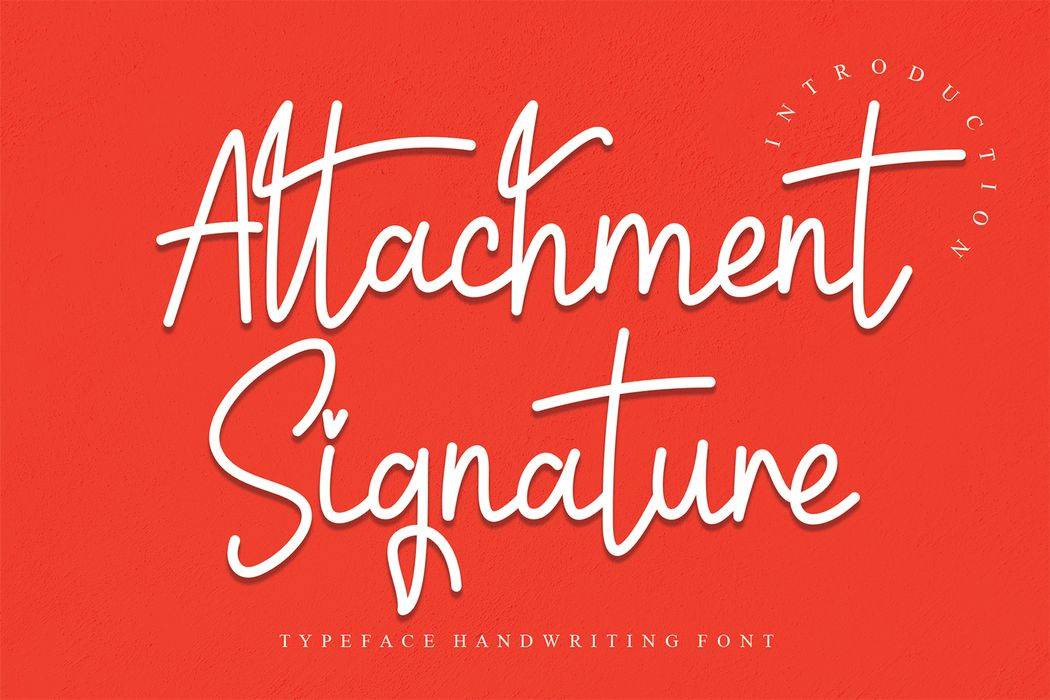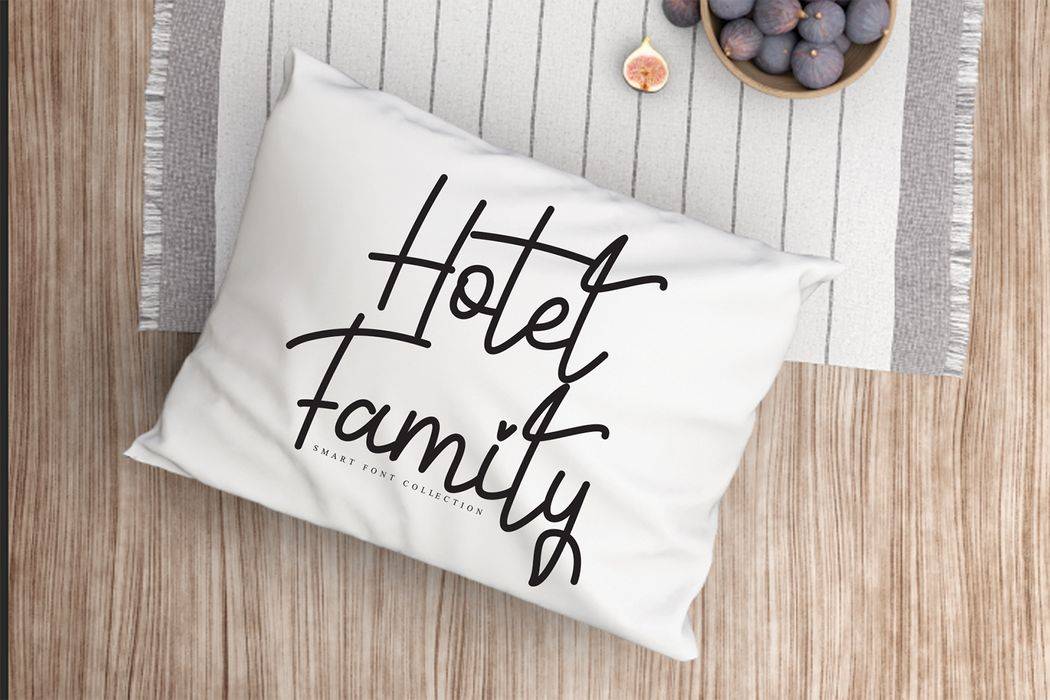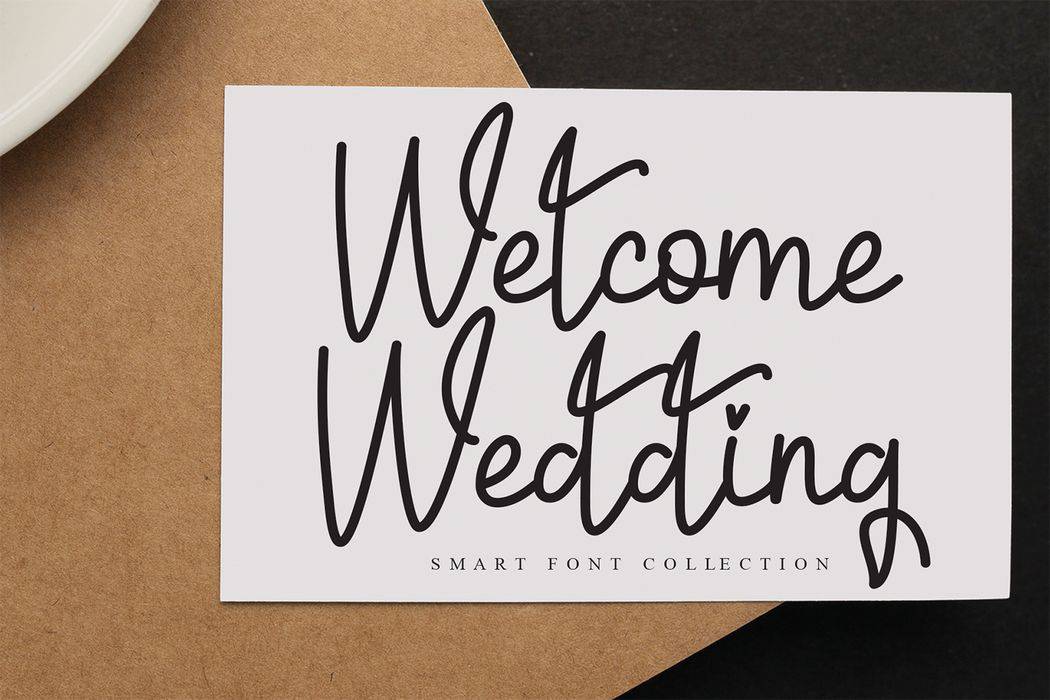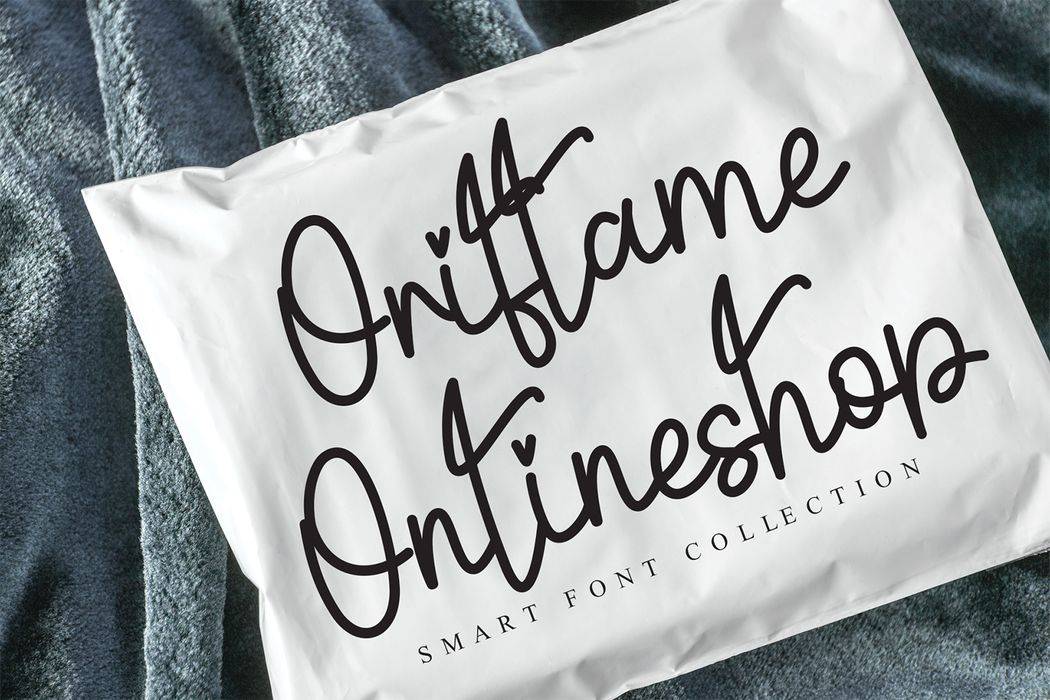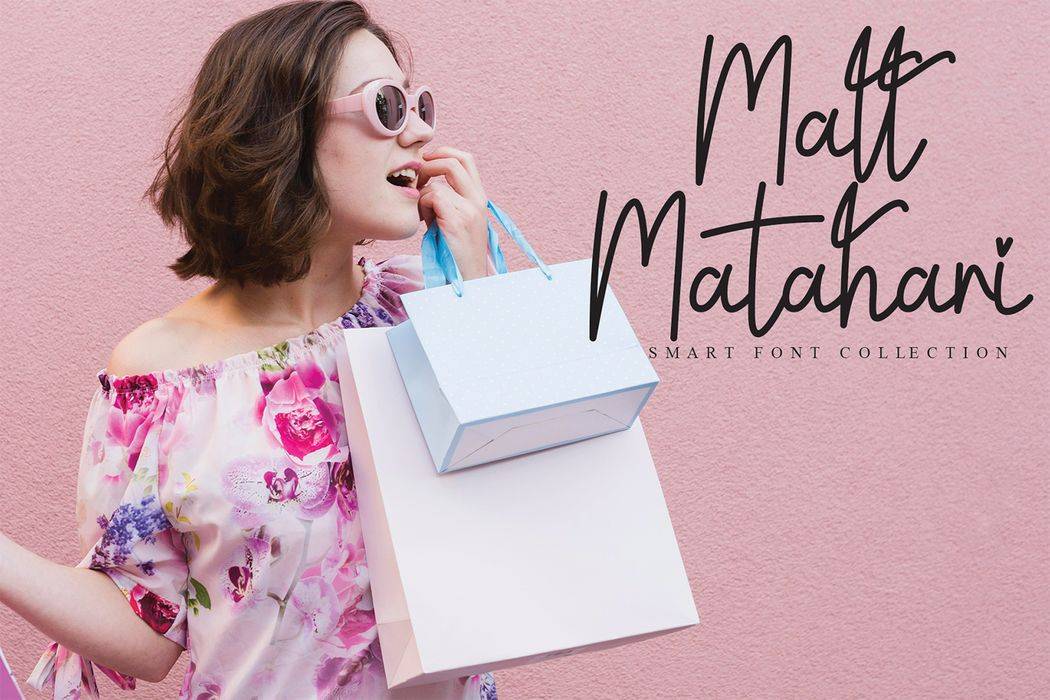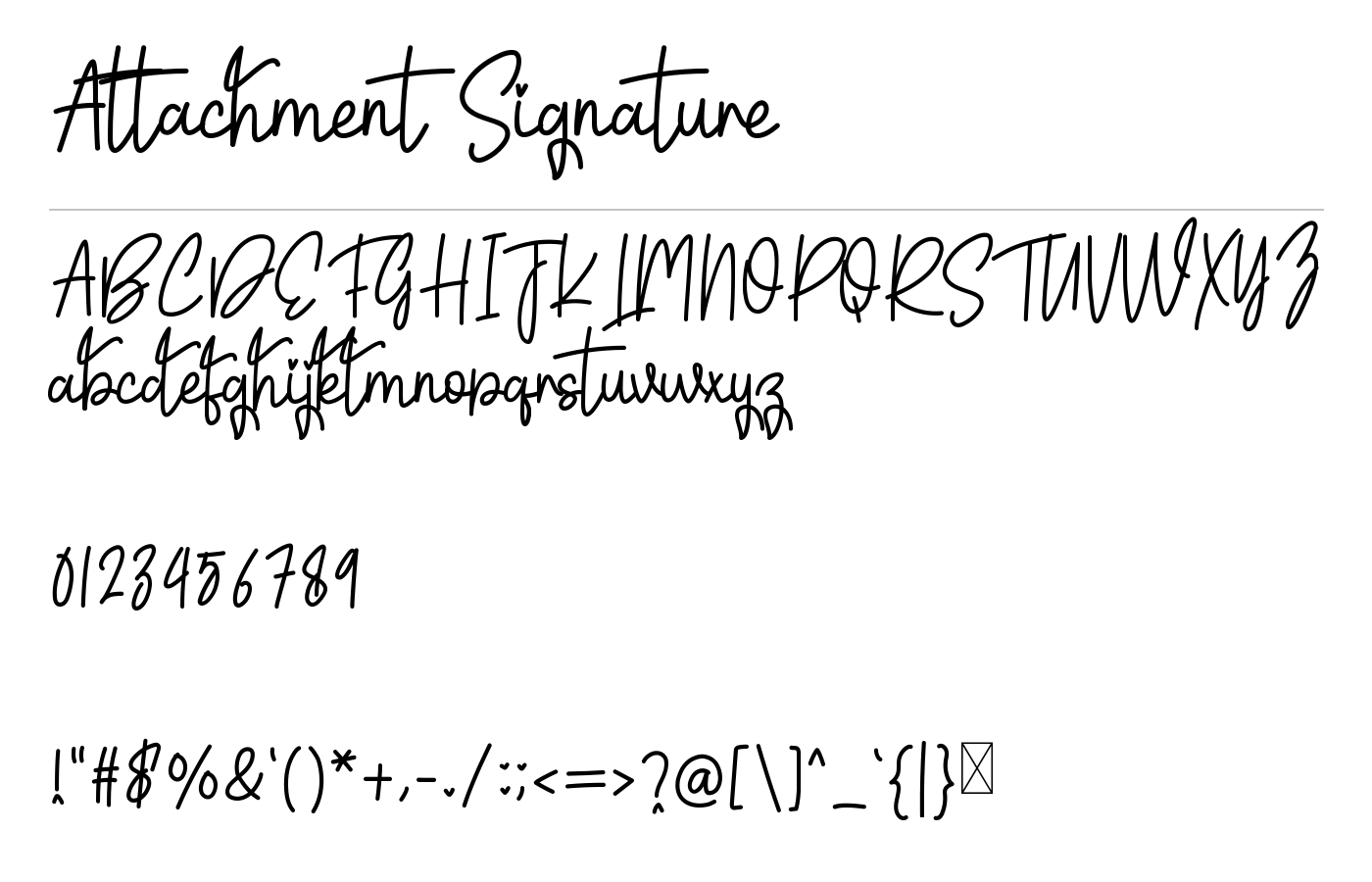
Attachment Signature Font is a playful and casual script typeface that mimics natural handwriting with tall, narrow letterforms and a lively, uneven baseline. Its thin strokes and delicate curves give it an airy, personal feel, making it ideal for creative branding, invitations, and social media where a friendly, approachable vibe is desired. This font works best in display sizes for logos and headlines that want to communicate warmth and individuality.
Attachment Signature Font
About Attachment Signature Font